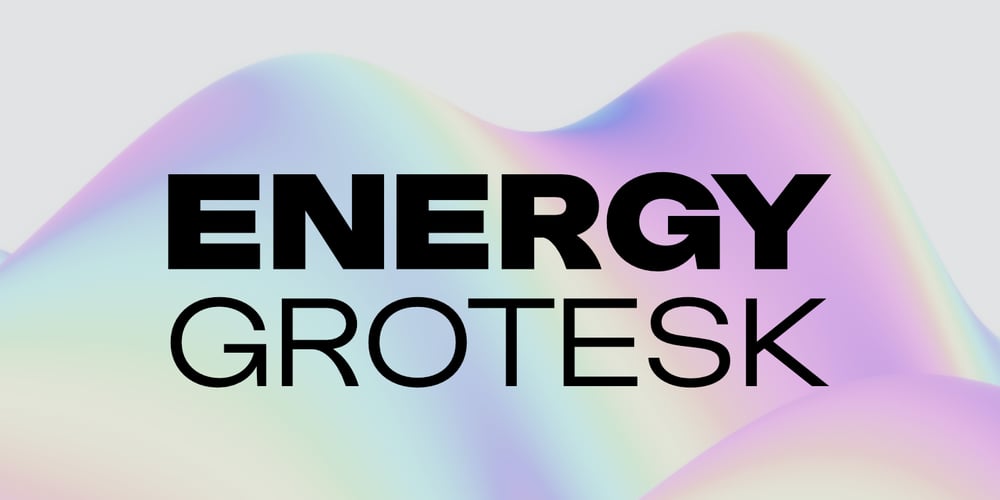
Energy Grotesk
Energy Grotesk font
Energy Grotesk Font Family was designed by Dar Meyer and published by Tall Chai. Energy Grotesk contains 10 styles and family package options. Energy Grotesk is a modern grotesque family. It is an OpenType Variable font with weight axis going from 100 to 900. Energy Grotesk is extrovert, bold and full of energy. Most wide, grotesque fonts are uppercase only, but Energy embraces upper and lowercase. Available in 9 weights Over 1000 glyphs supporting extended Latin Ideal for display texts: Titles, Logos and Headlines etc. Supports OpenTypes features like Ligatures and Stylistic Alternates Tabular Numerals included